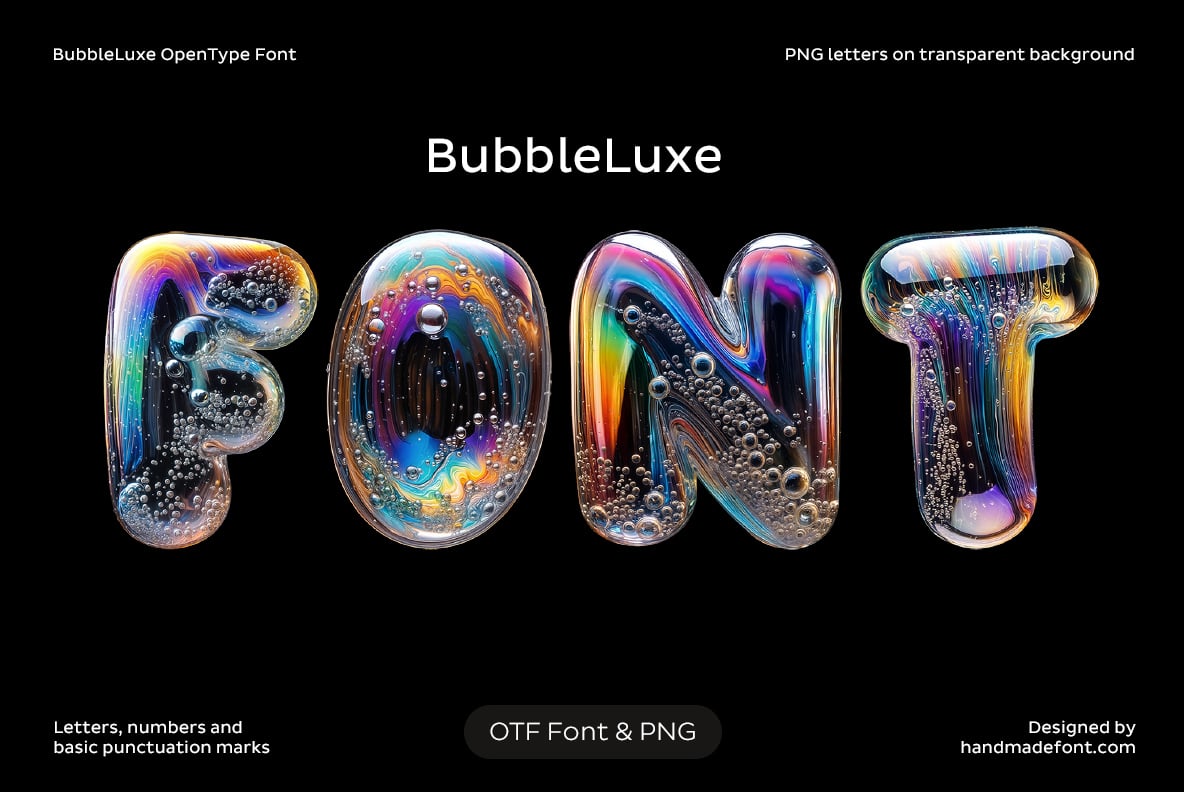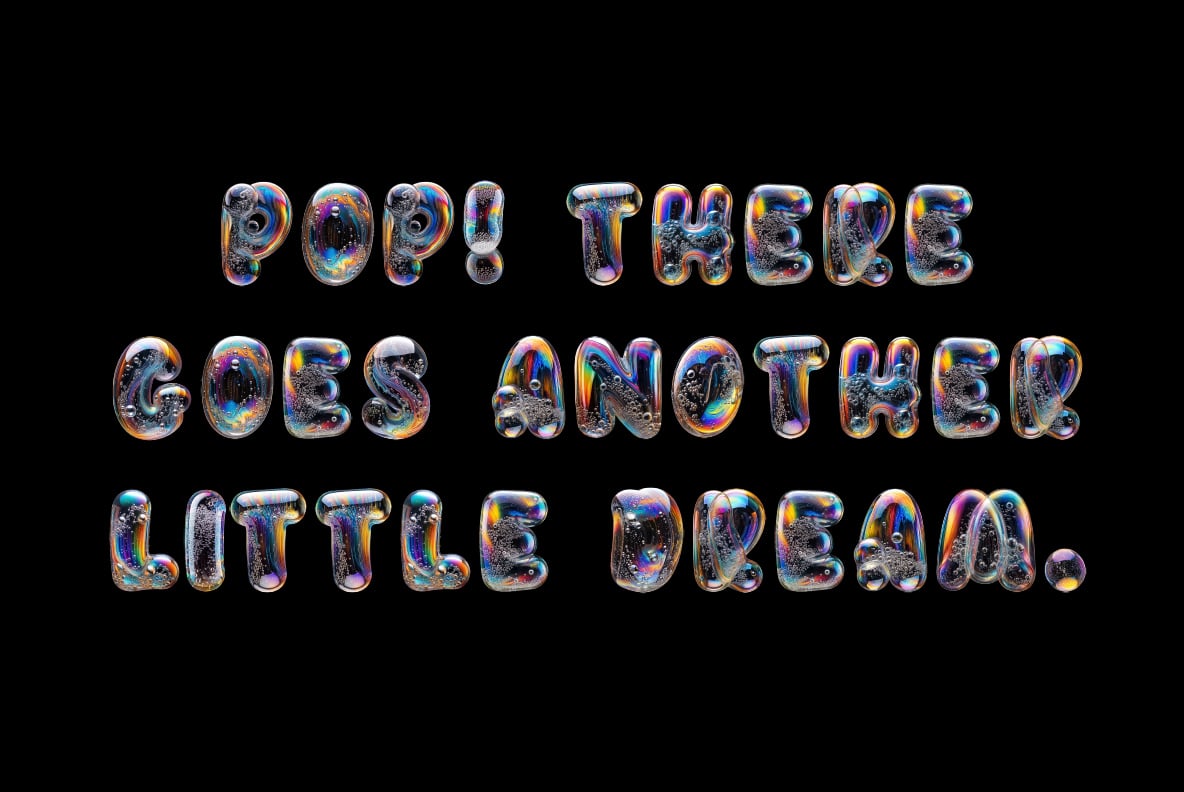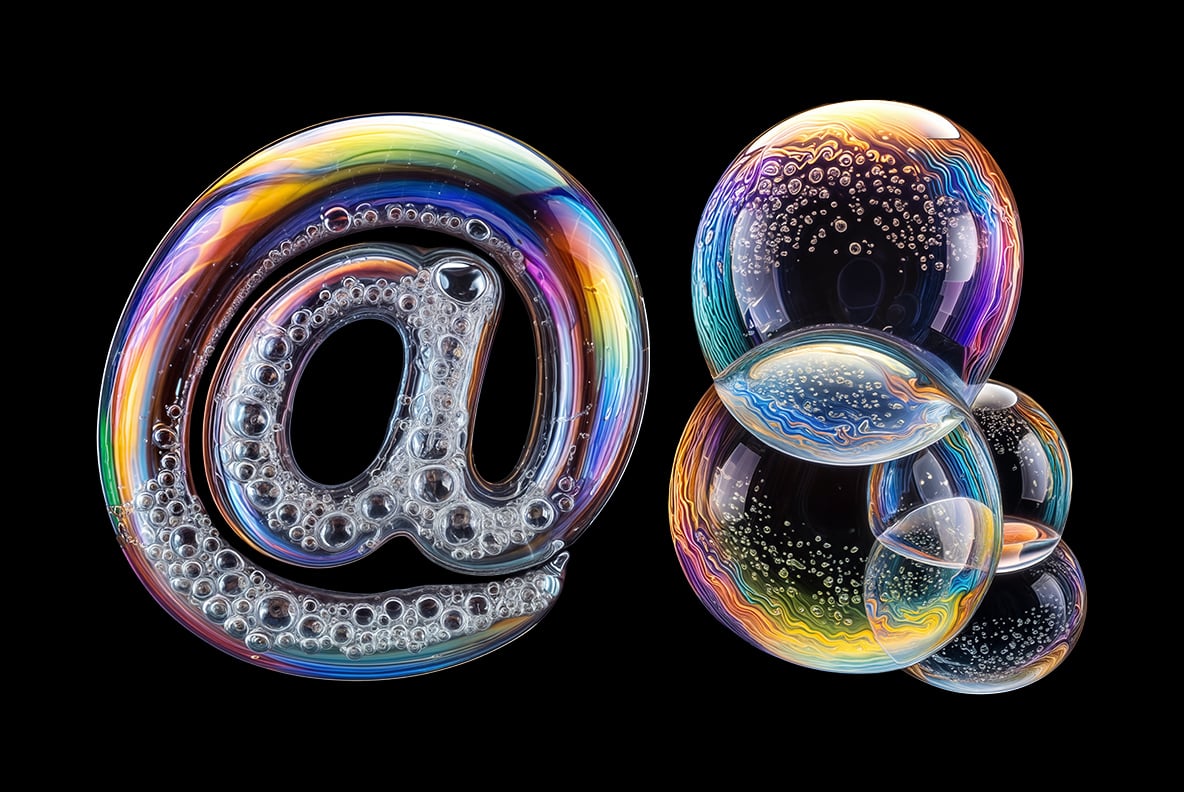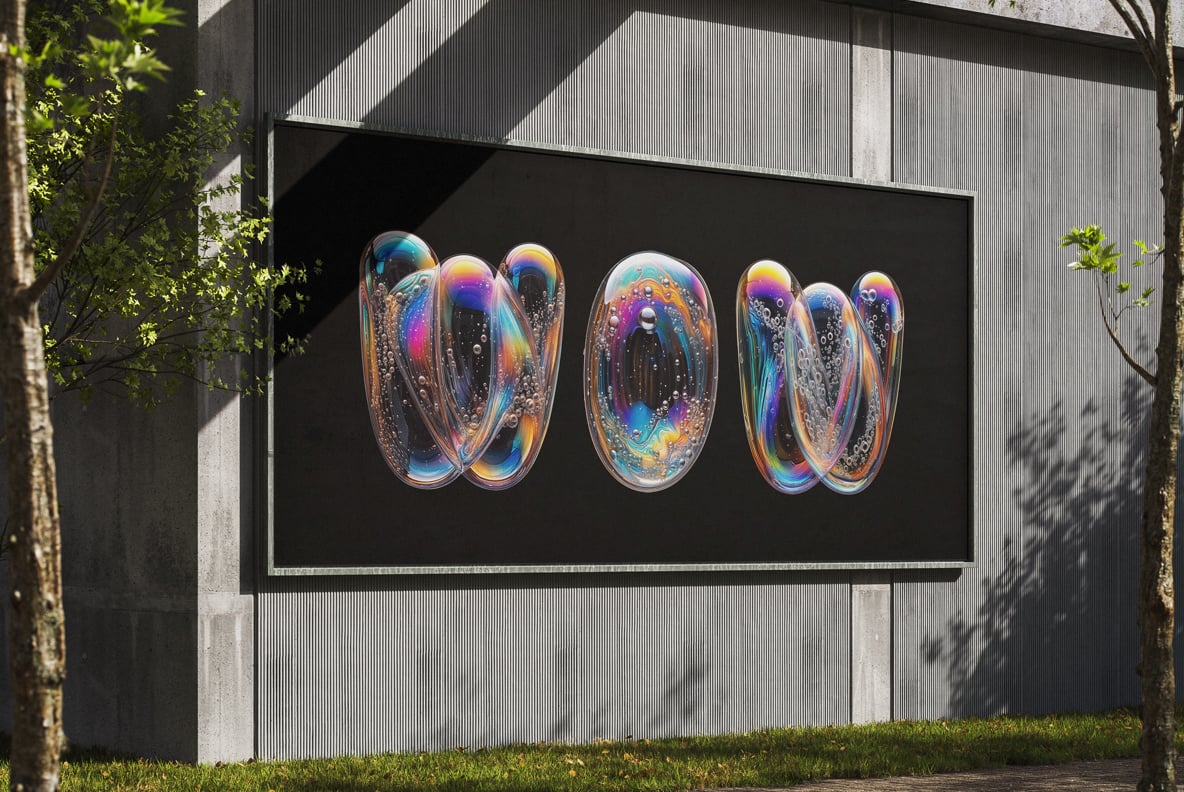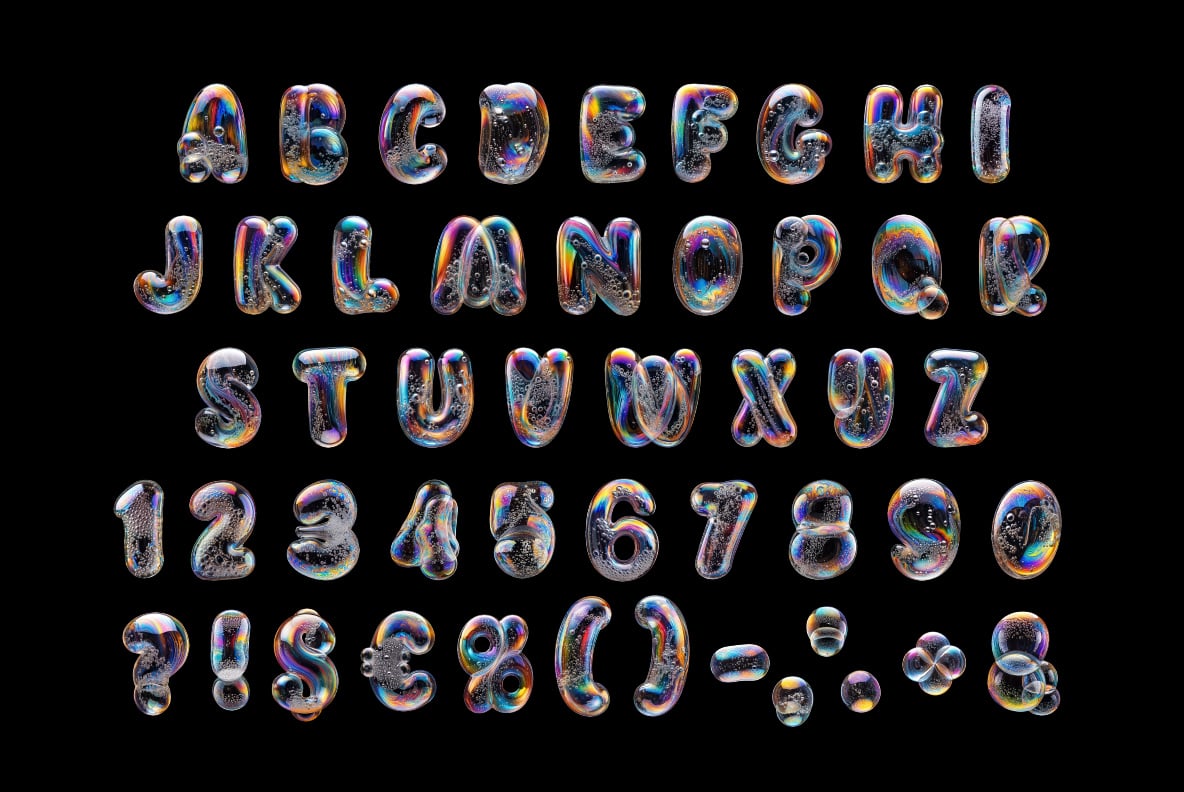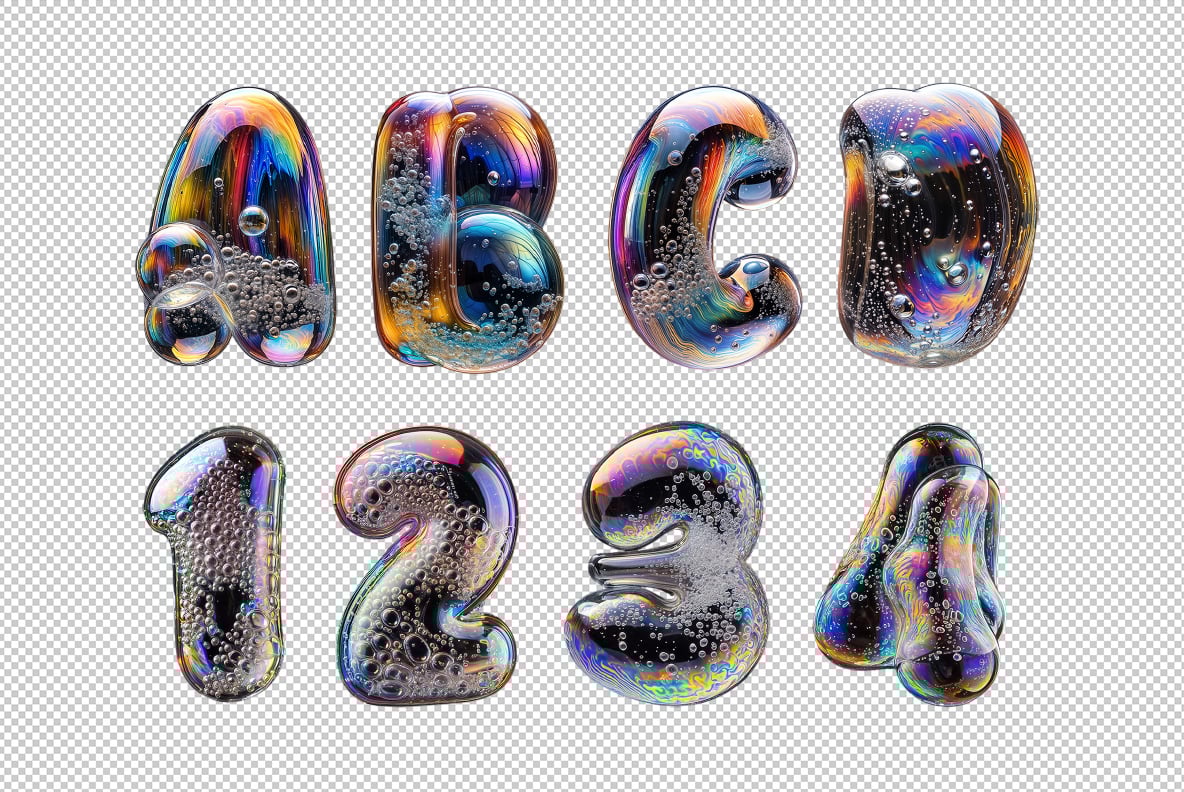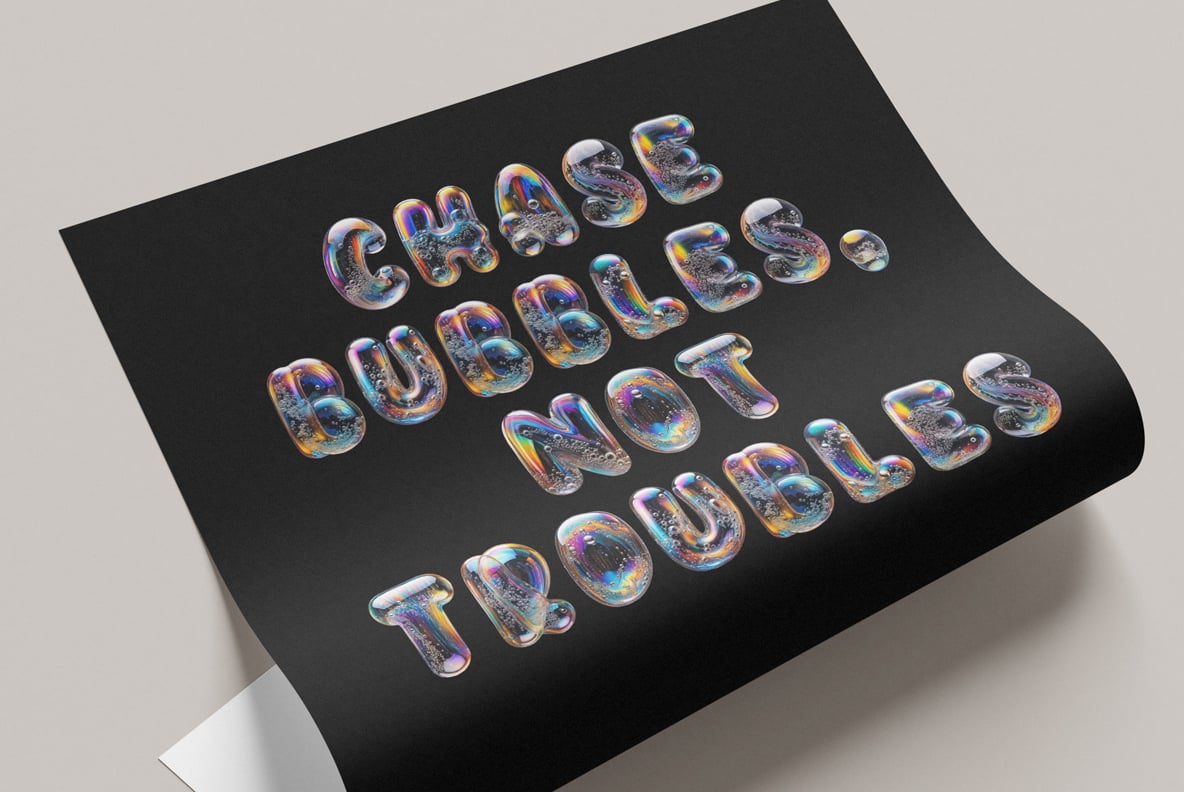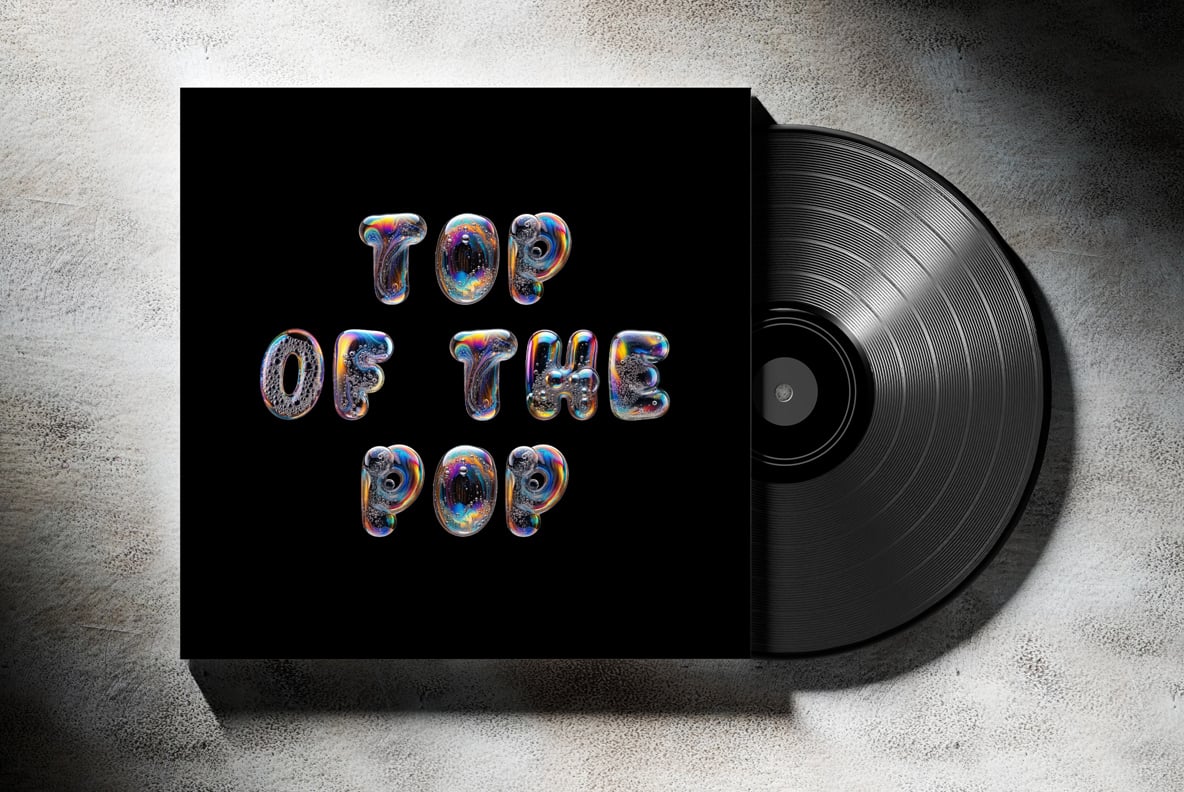
BubbleLuxe Font
The BubbleLuxe Font is a dazzling, iridescent typeface that captures the delicate magic of soap bubbles in every letter. Each character shimmers with rainbow colors, swirling light, and airy transparency, giving your designs a sense of luxury, playfulness, and wonder. Perfect for projects that need a touch of whimsy and sophistication, BubbleLuxe feels both elegant and fun — like typography dipped in liquid light. With its glossy surfaces and tiny air bubbles dancing inside, this font turns simple text into a sparkling visual delight. Use it to create eye-catching posters, dreamy branding, or anything that deserves to shine brilliantly.